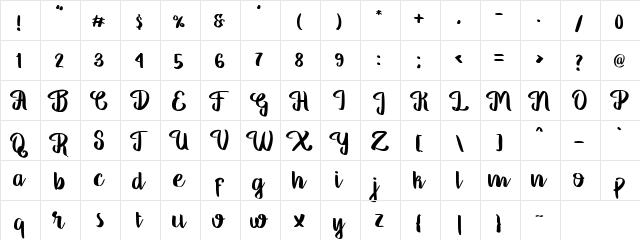
Georgia Script Normal
| Foundry | Debut Studio |
| Designer | Debut Studio |
Design Context for Georgia Script Typeface
Georgia Script brings a calligraphic fluidity to the page — its connecting strokes and expressive curves give it an unmistakably human quality.
Font Pairing: Combine Georgia Script with a simple geometric sans for maximum contrast — the tension between flowing curves and clean structure is a classic typographic pairing.
Pro Tip: Pair Georgia Script with a clean sans-serif for supporting text. The contrast between fluid script and geometric structure creates an elegant typographic hierarchy.